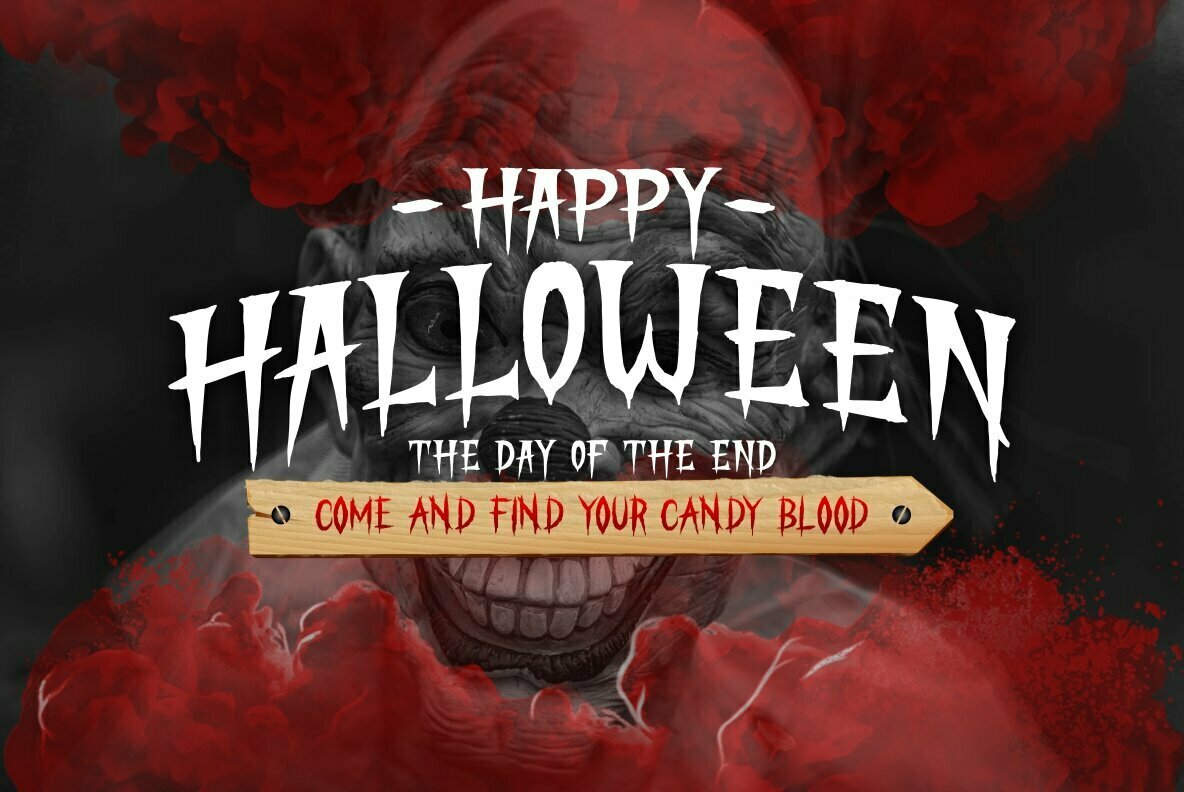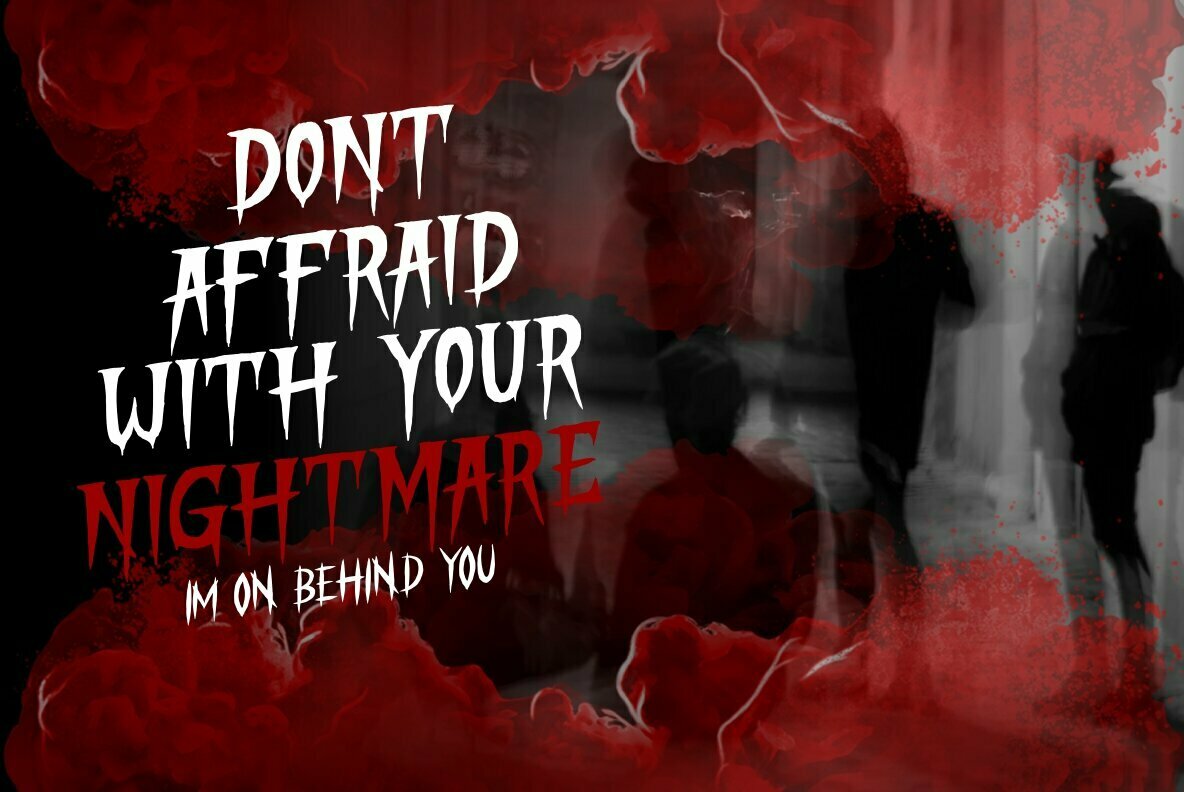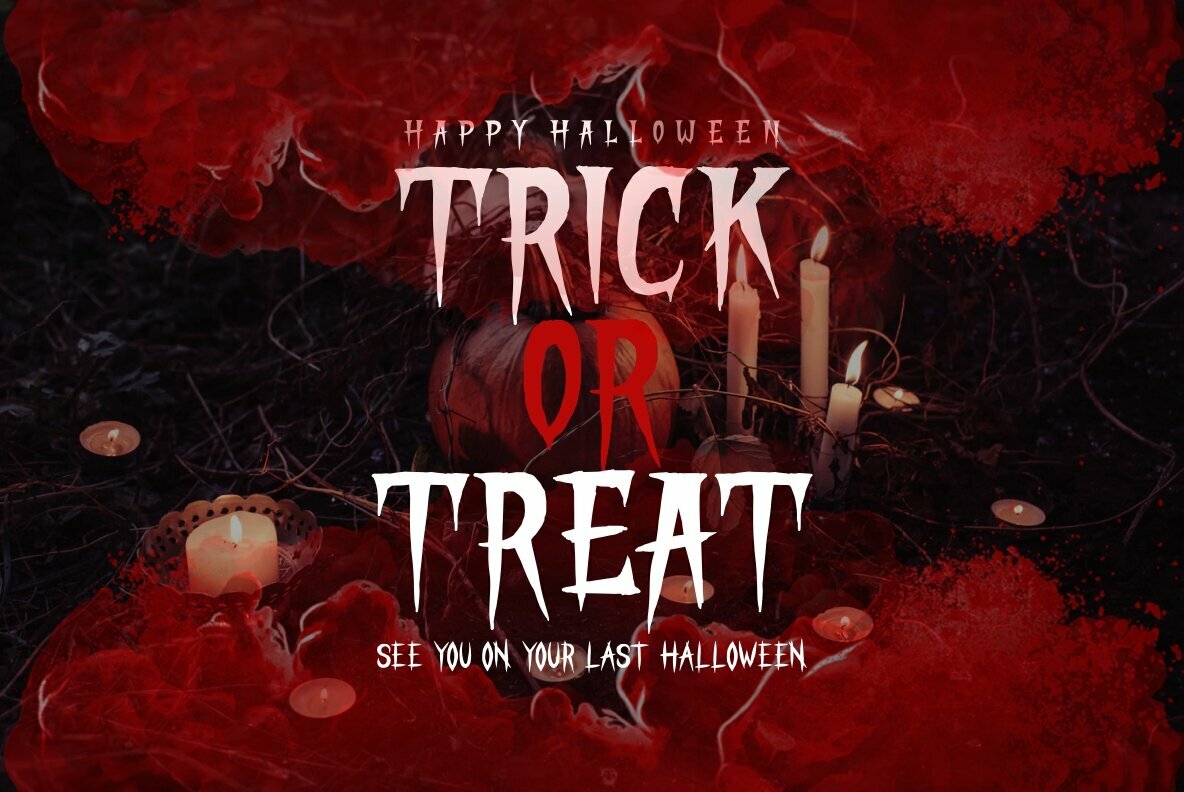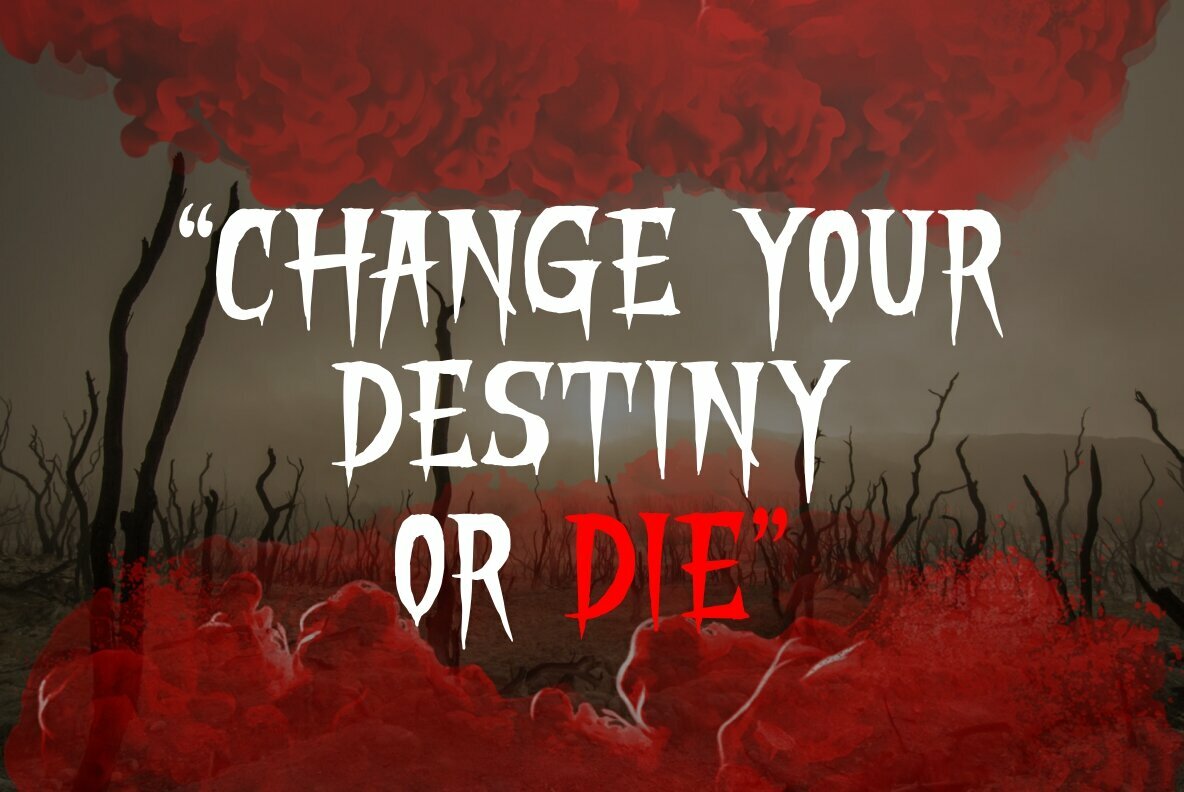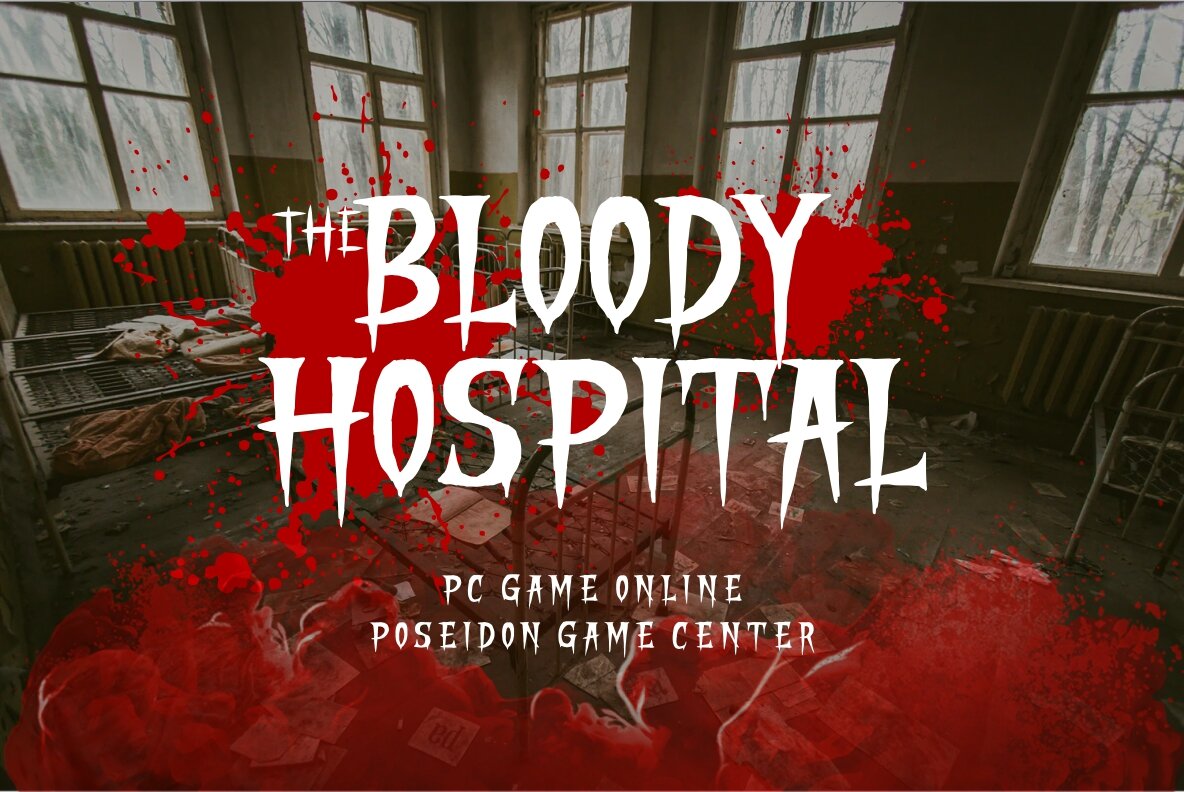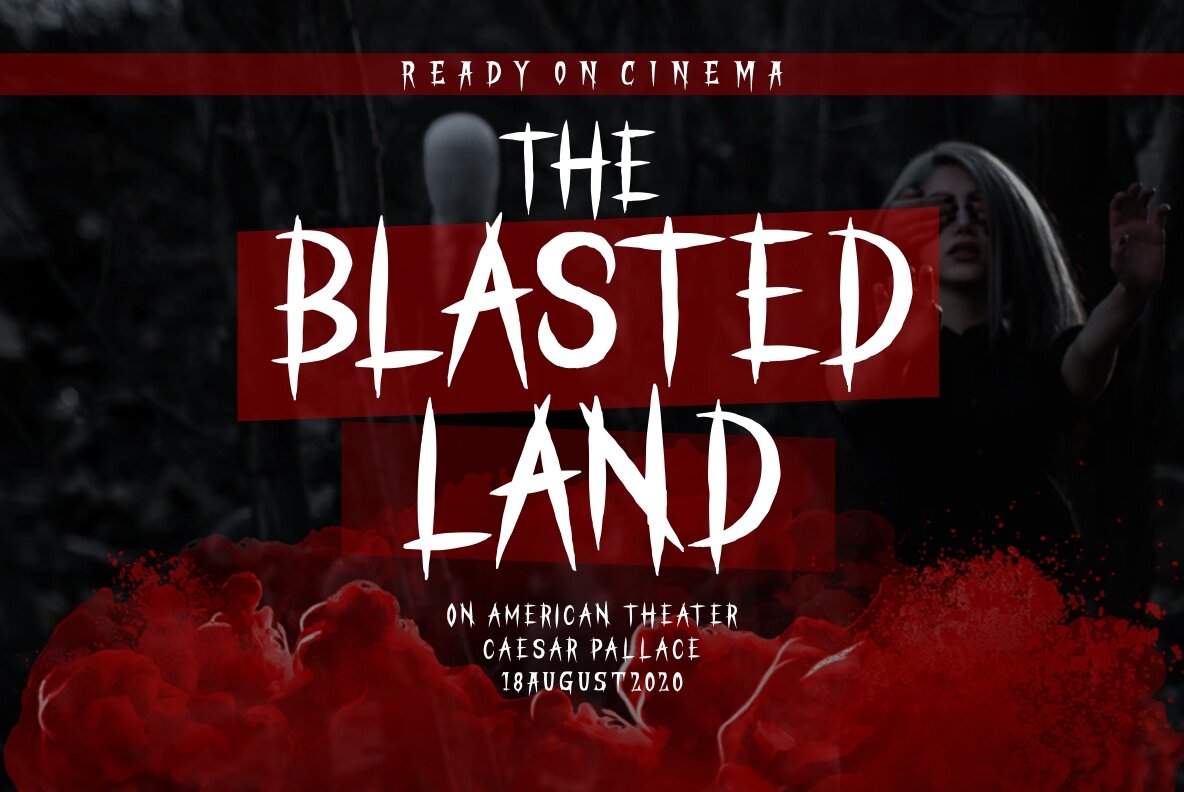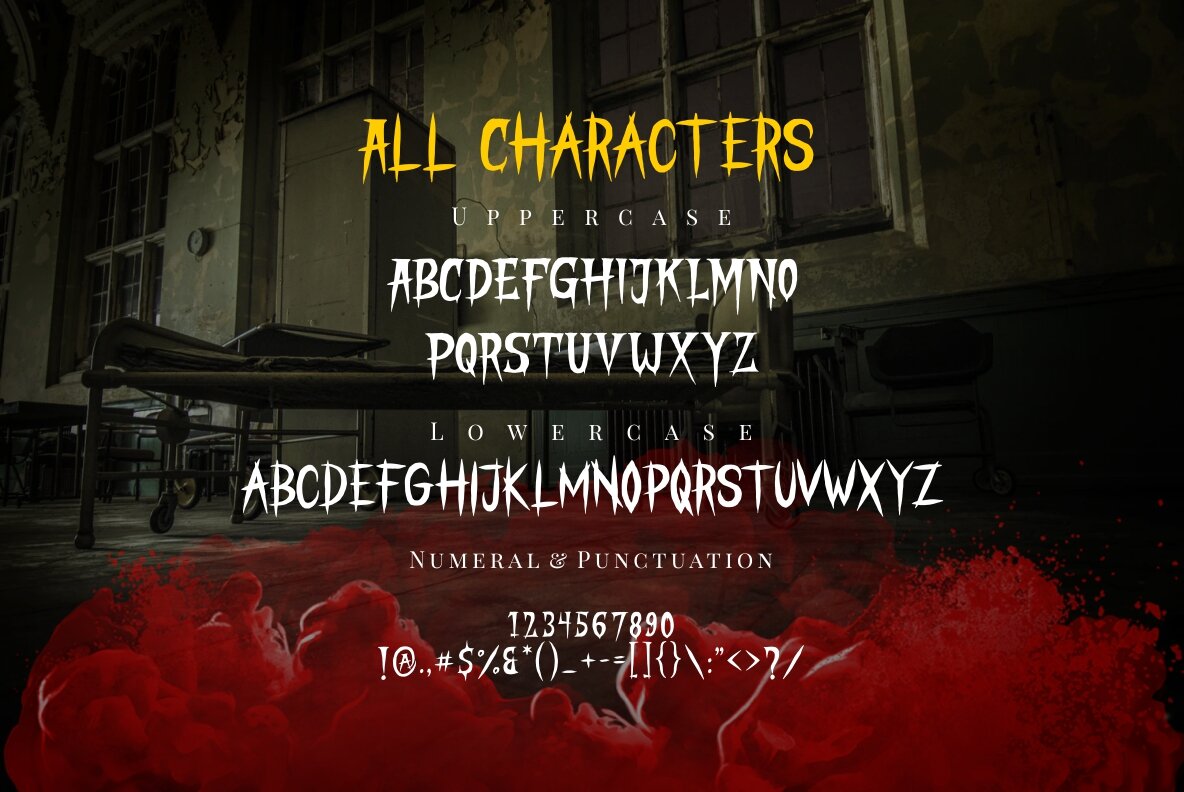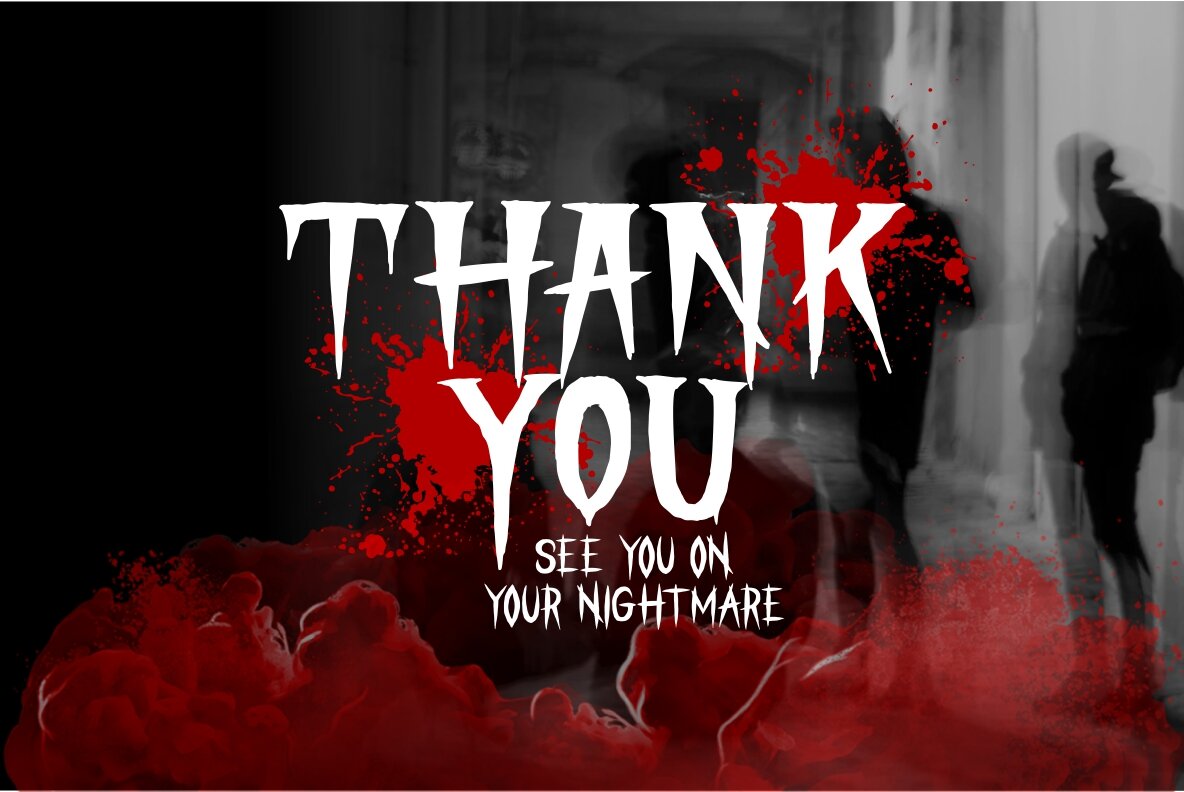
Stranger Creature Font
Stranger Creature
Stranger Creature is a horror style display font inspired by horror movies. This font was designed for Halloween, Horror, Thriller and Scary theme projects.
- Uppercase
- Lowercase
- Number, Punctuation and Symbols